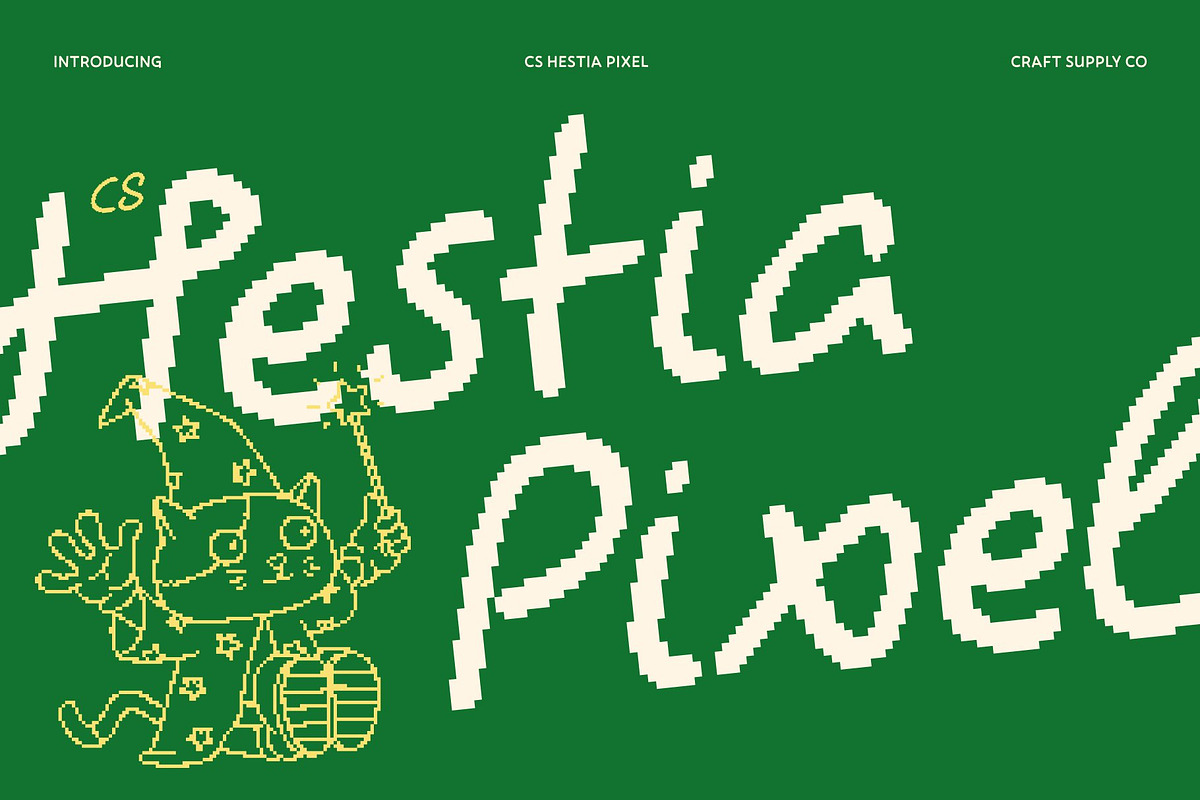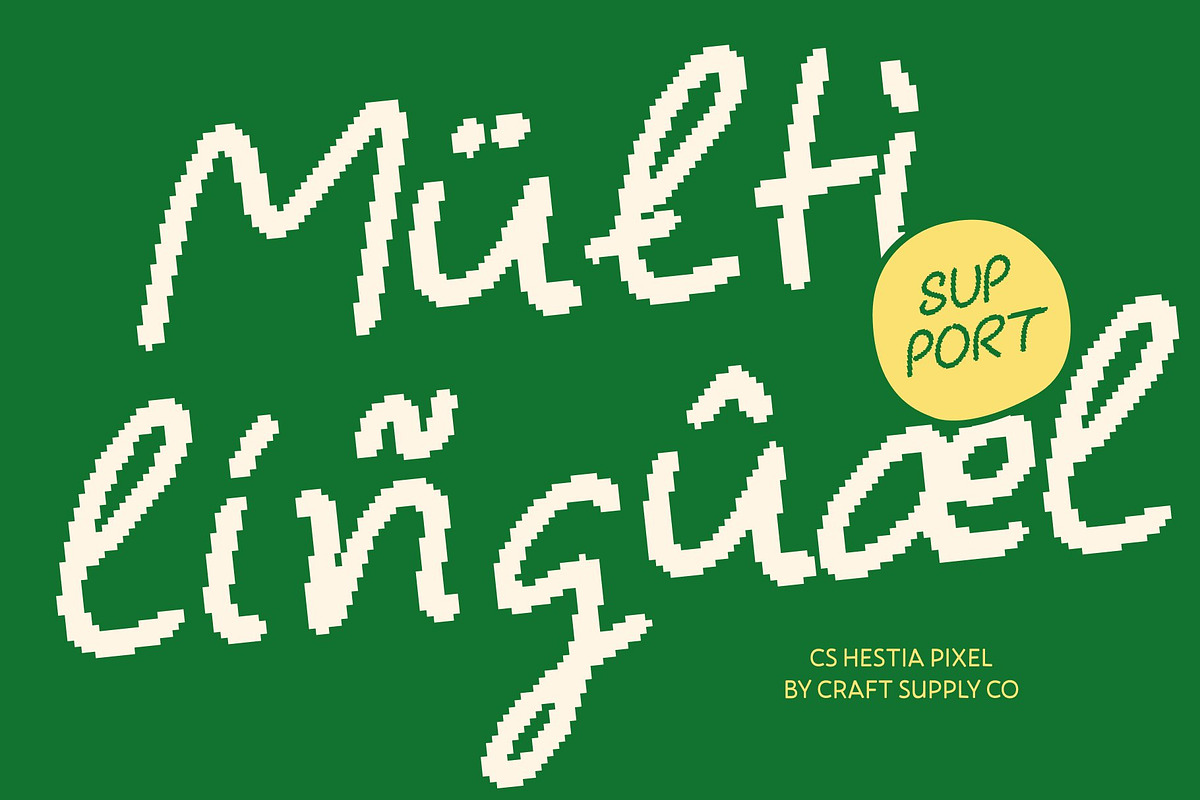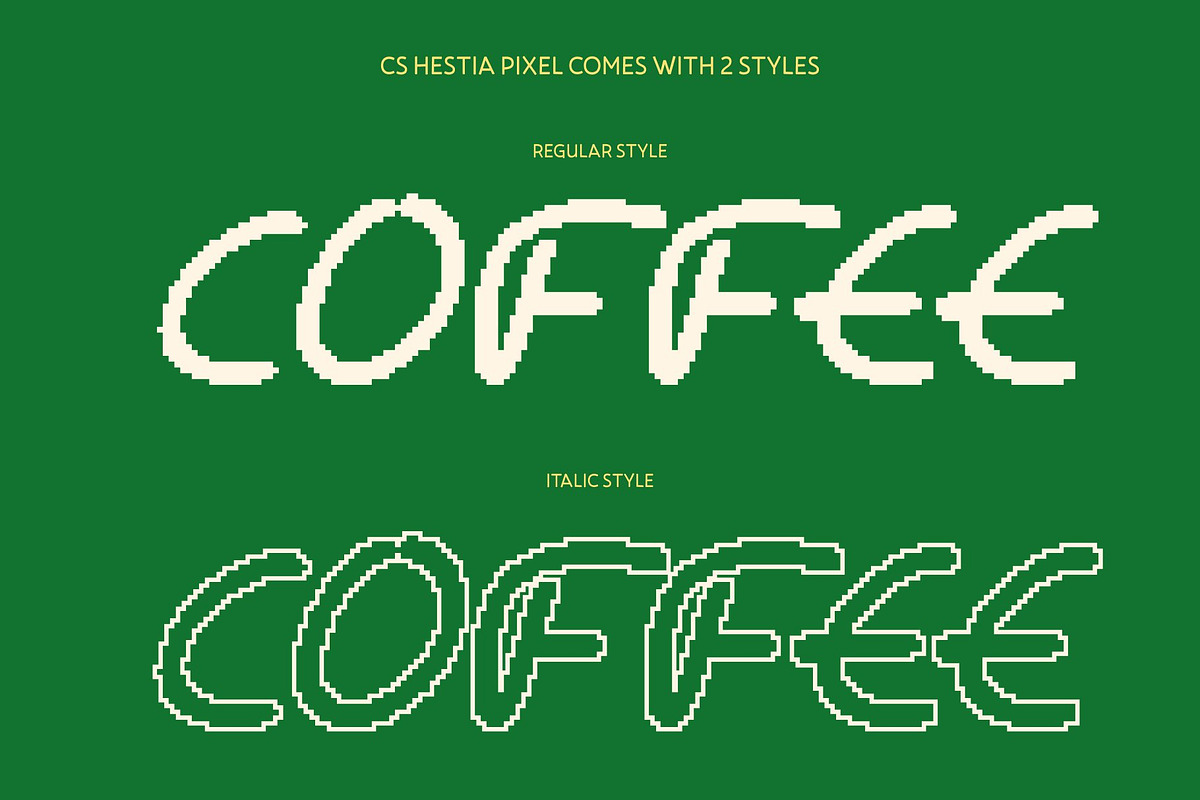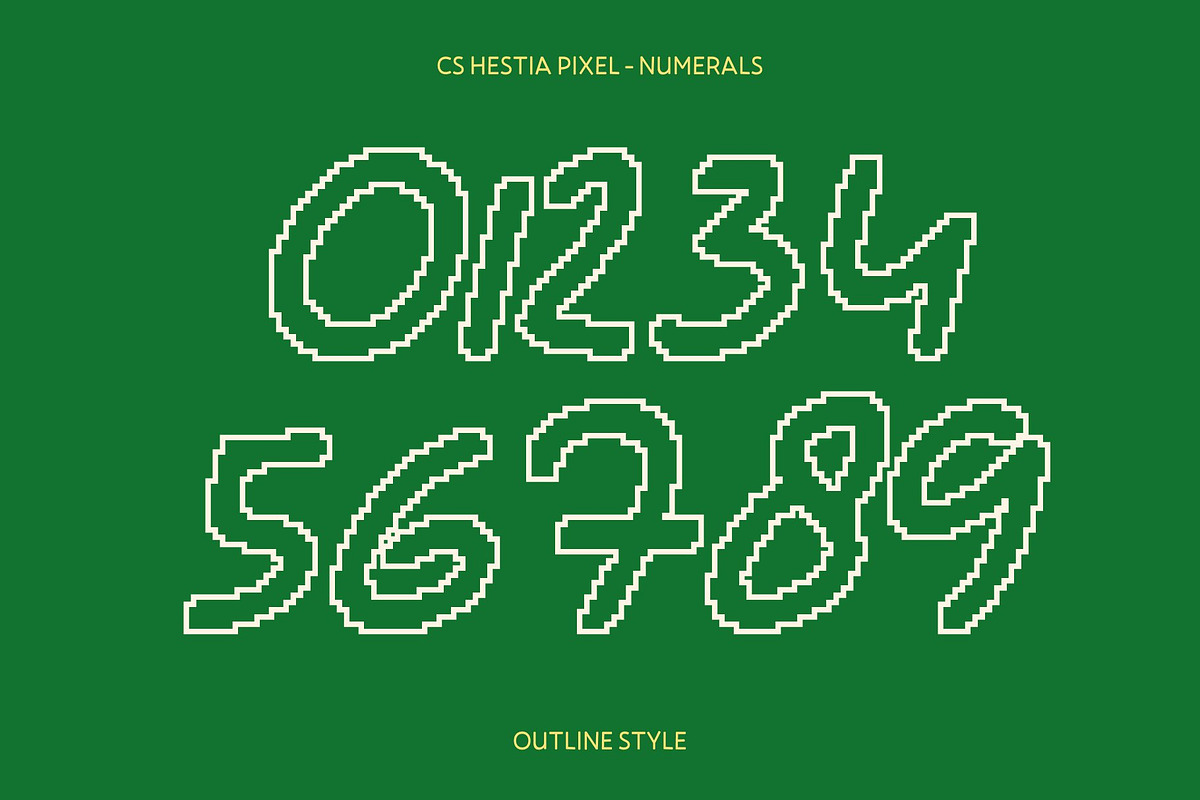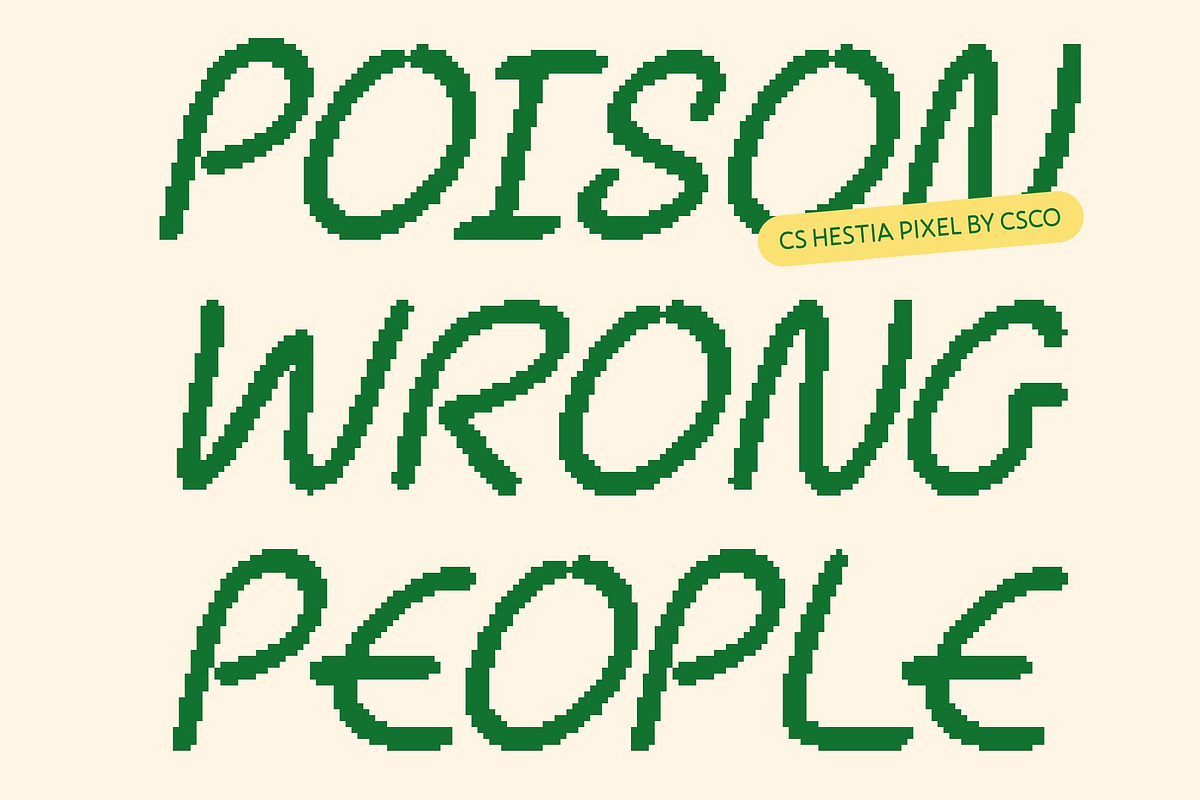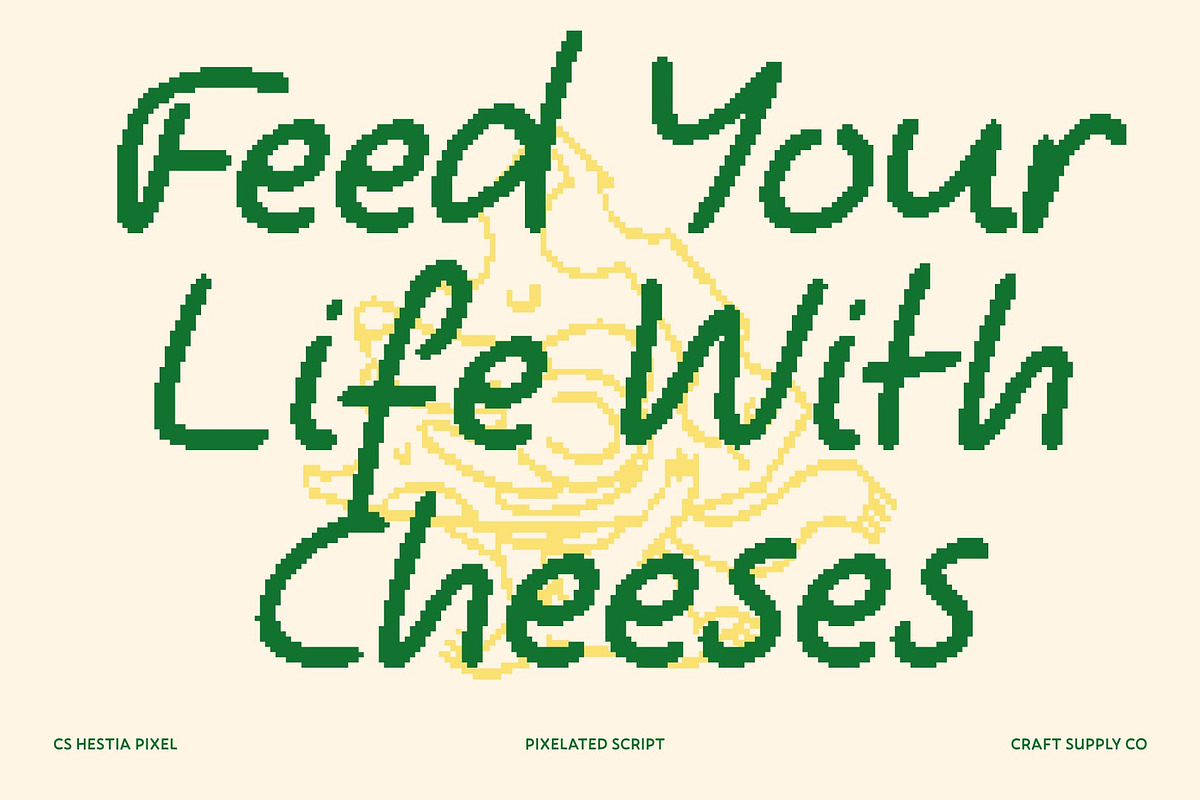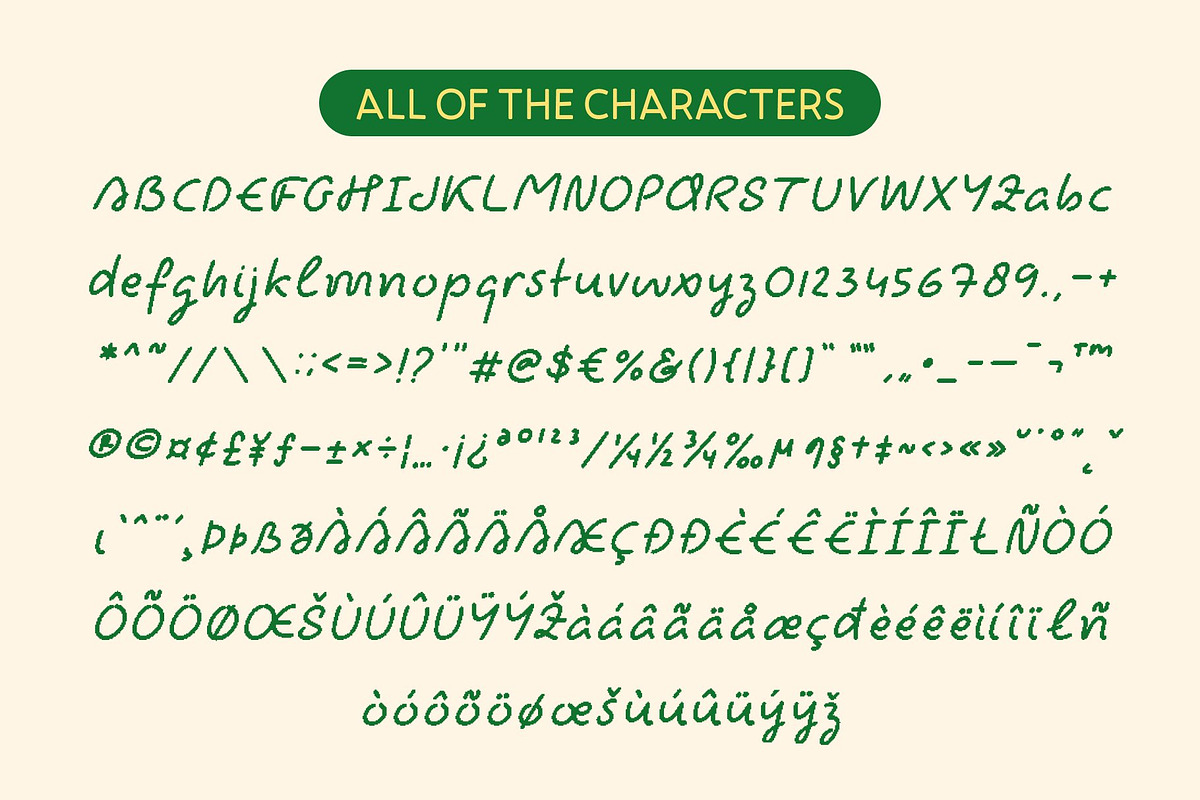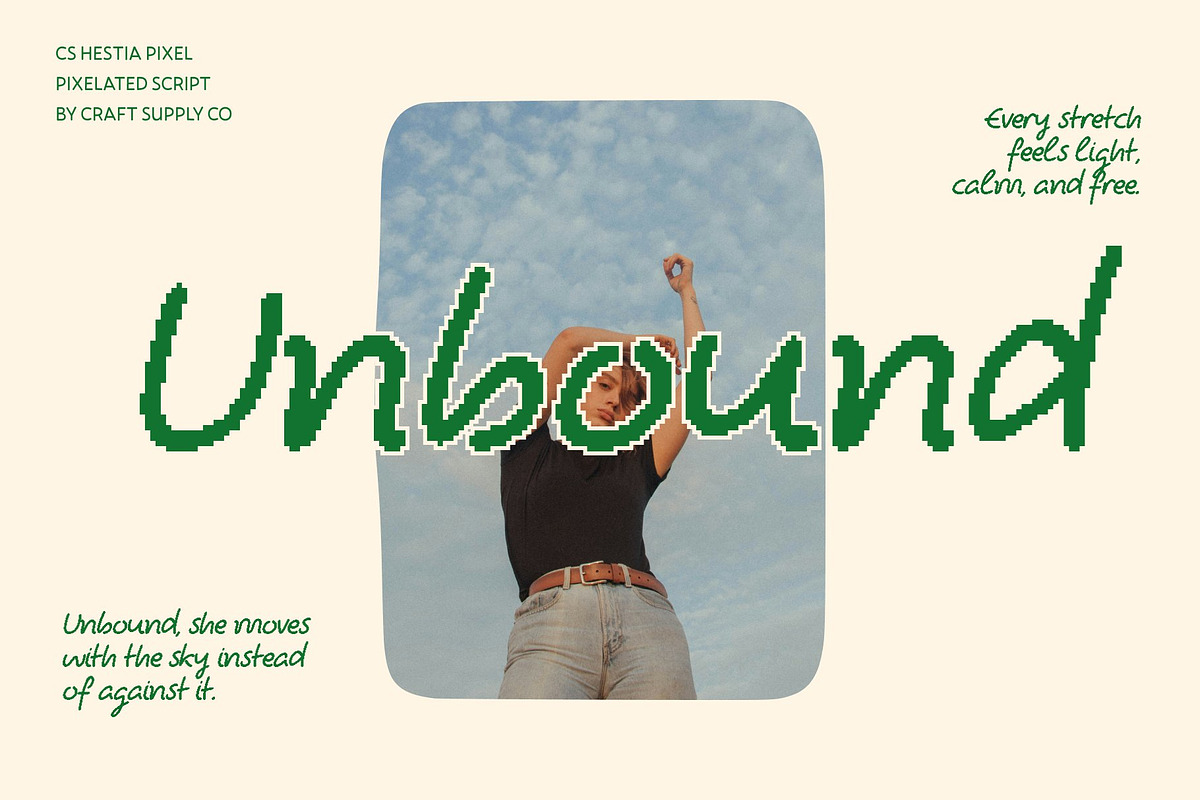
CS Hestia Pixel
CS Hestia Pixel – Fun Handwritten Display with Playful Energy
Energetic Handwritten Style with Friendly Charm This is a fun display font designed to bring lively, playful energy into your designs, enhanced with a distinctive pixel style. Its friendly handwritten shapes feel cheerful and approachable, while subtle quirky details give each character a unique personality. The pixel touch adds a nostalgic digital vibe, making the font feel both playful and visually eye-catching.
Quirky Pixel Shapes for Playful Visual Expression The slightly irregular, pixel-based forms give this font its charming character. Each letter feels full of movement and spontaneity, creating a dynamic rhythm that instantly grabs attention. This playful structure makes your typography feel expressive, warm, and full of life perfect for designs that embrace creativity and fun.
Friendly Handwritten Flow with Retro-Digital Appeal The handwritten flow ensures every word feels personal and inviting, while the pixel construction adds a retro-tech aesthetic inspired by classic digital and old-school screen styles. Soft curves and balanced spacing keep the font readable, blending friendliness with energetic visual impact for modern digital projects.
Perfect for Youth Branding, Greeting Cards, and Casual Projects This font shines in youth branding, greeting cards, playful packaging, posters, social media content, and casual creative projects. Whether used for cheerful headlines, creative logos, or fun event materials, this font delivers a vibrant personality that feels joyful, dynamic, and full of character perfect for digital designs and nostalgic tech-inspired visuals.
- CS Hestia Pixel Regular
- CS Hestia Pixel Outline